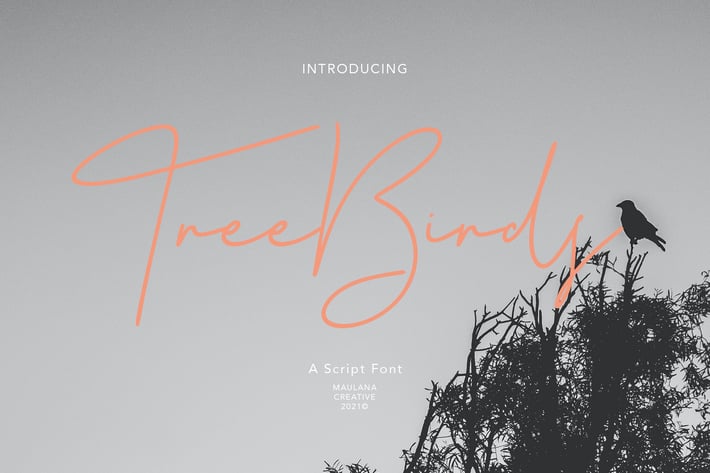
Treebirds Script Font
Treebirds is casual script font, with clean regular contrast stroke, slanted and fun character. It has Opentype features ligatures of character and alternates lowercases, To give you an extra creative work. Treebirds font support multilingual more than 100+ language. This font is good for logo design, Social media, Movie Titles, Books Titles, a short text even a long text letter and good for your secondary text font with sans or serif. Make a stunning work with Treebirds font.